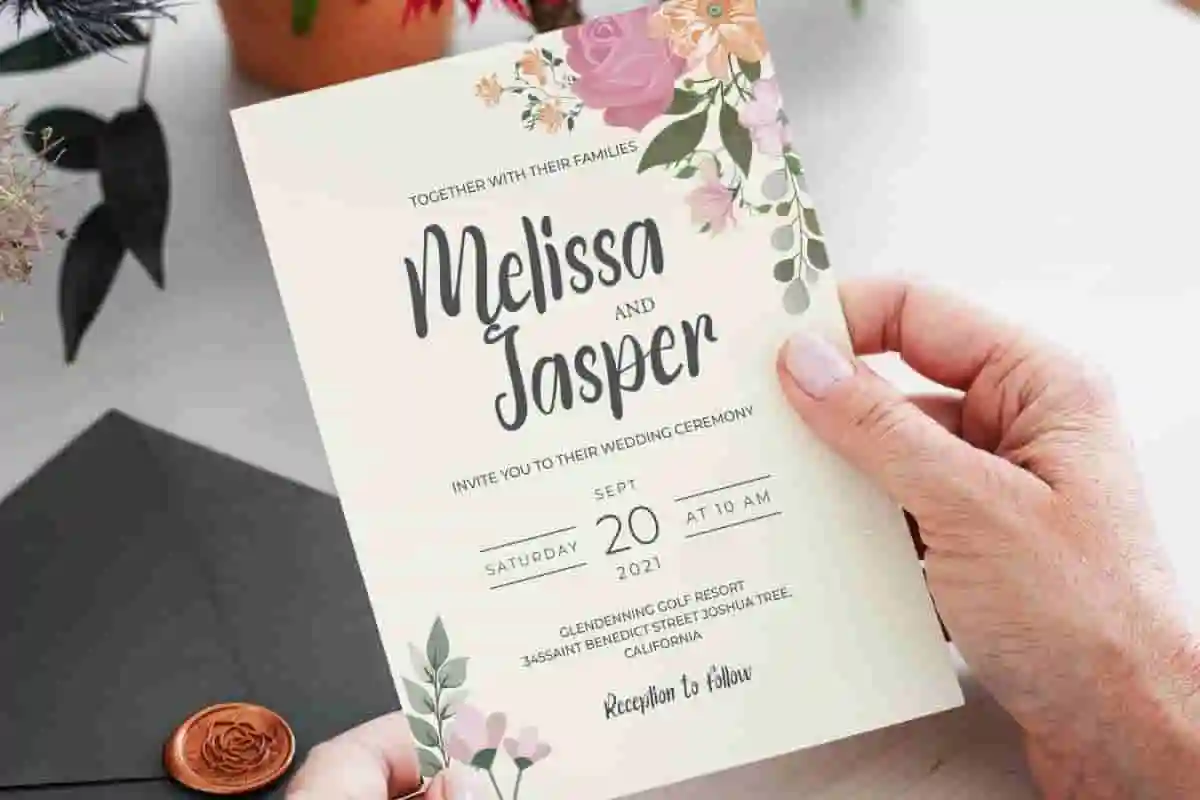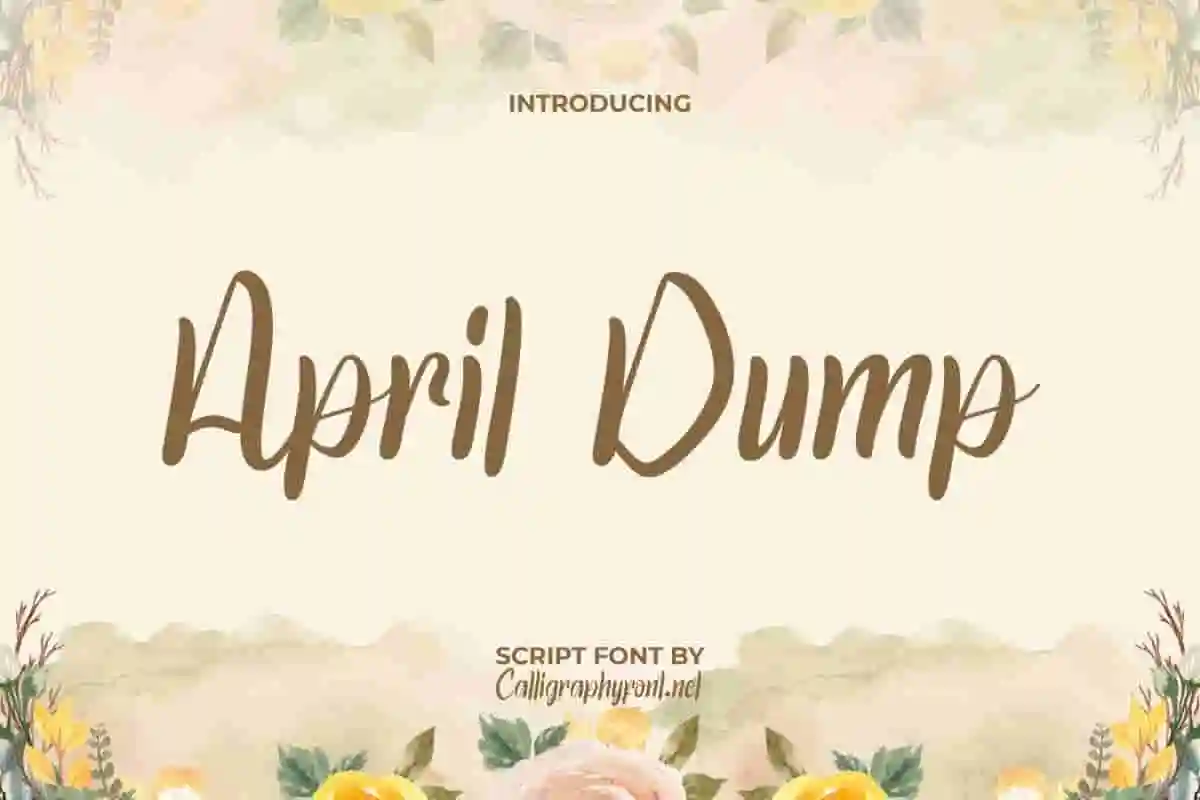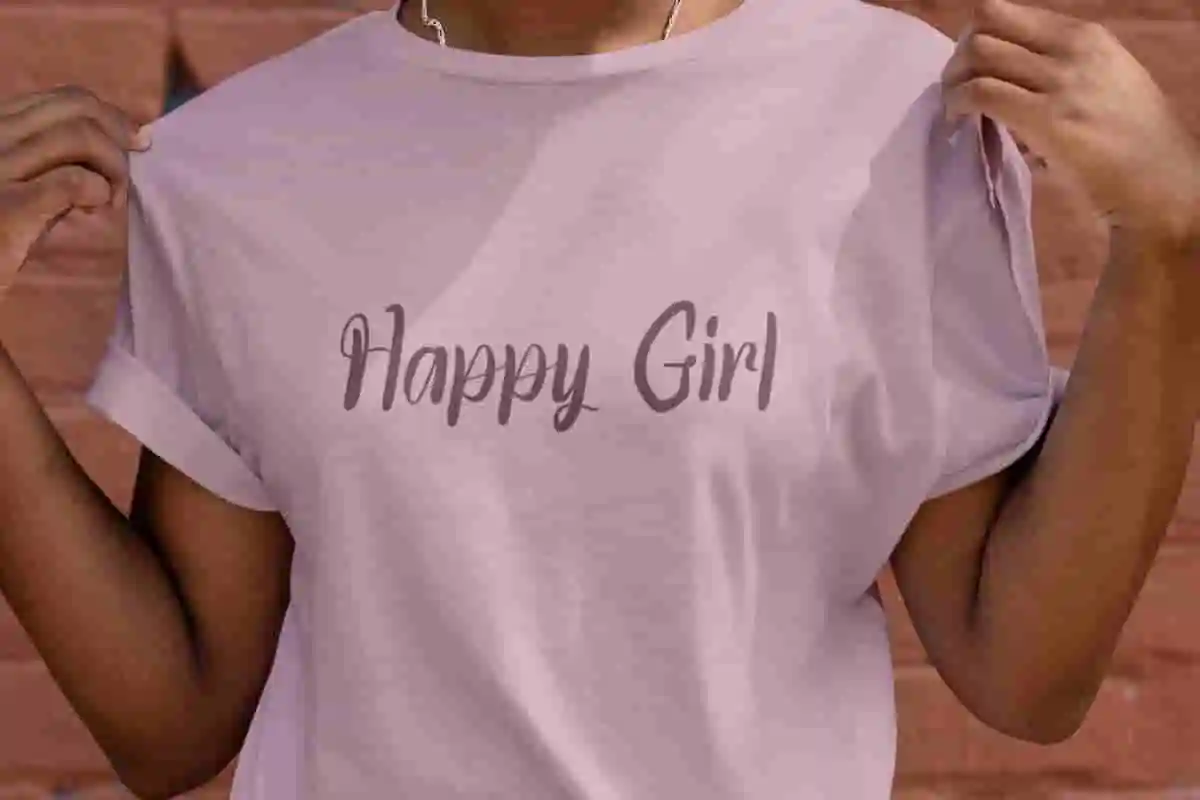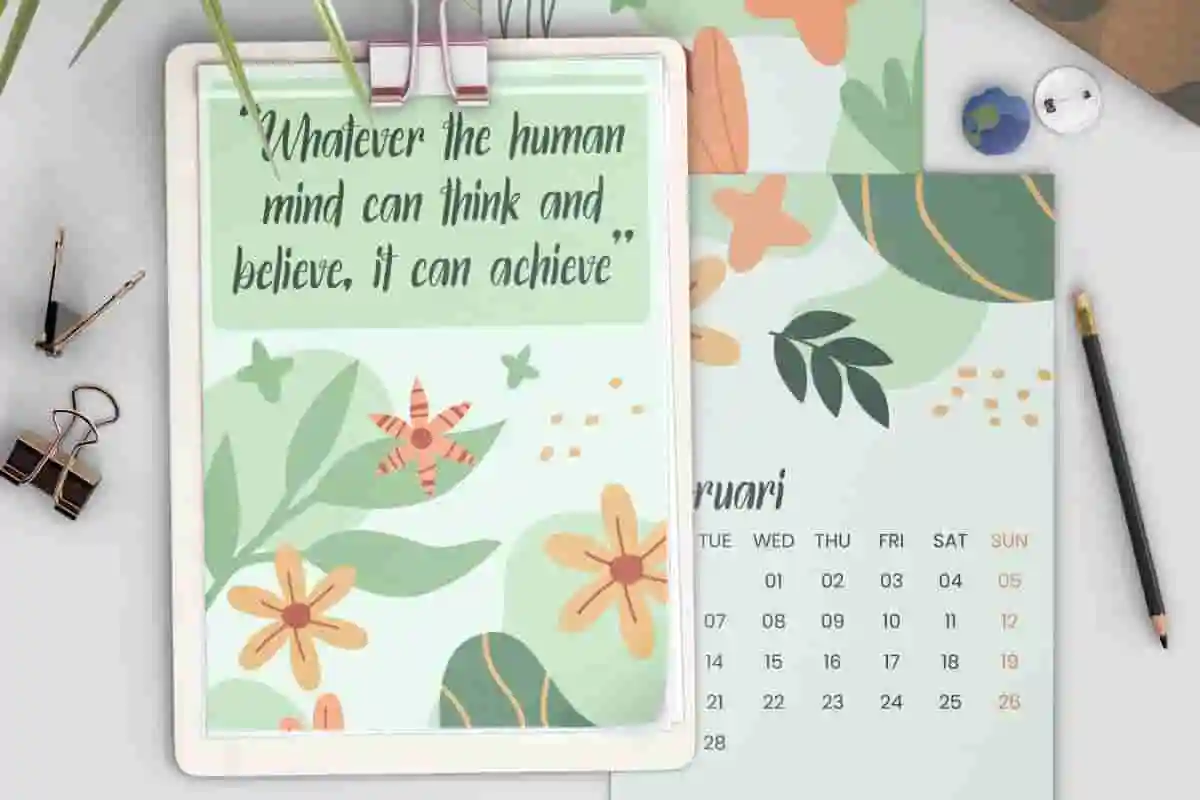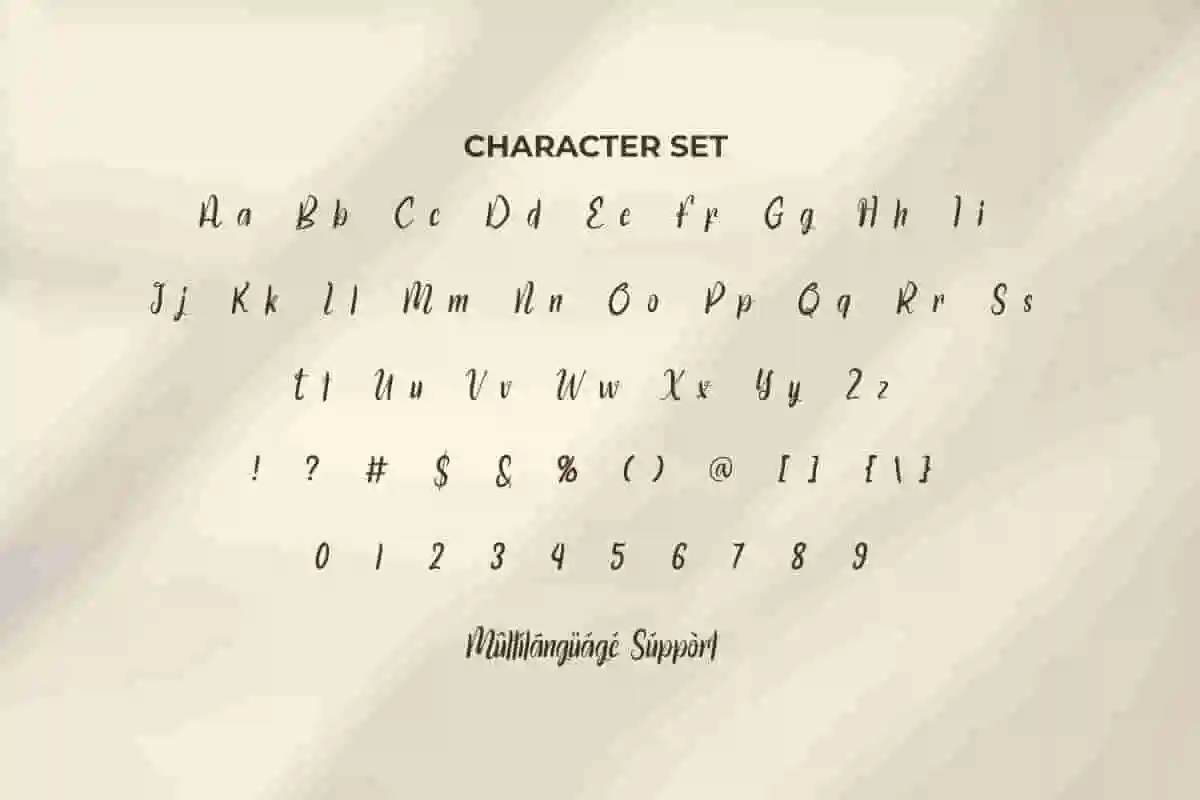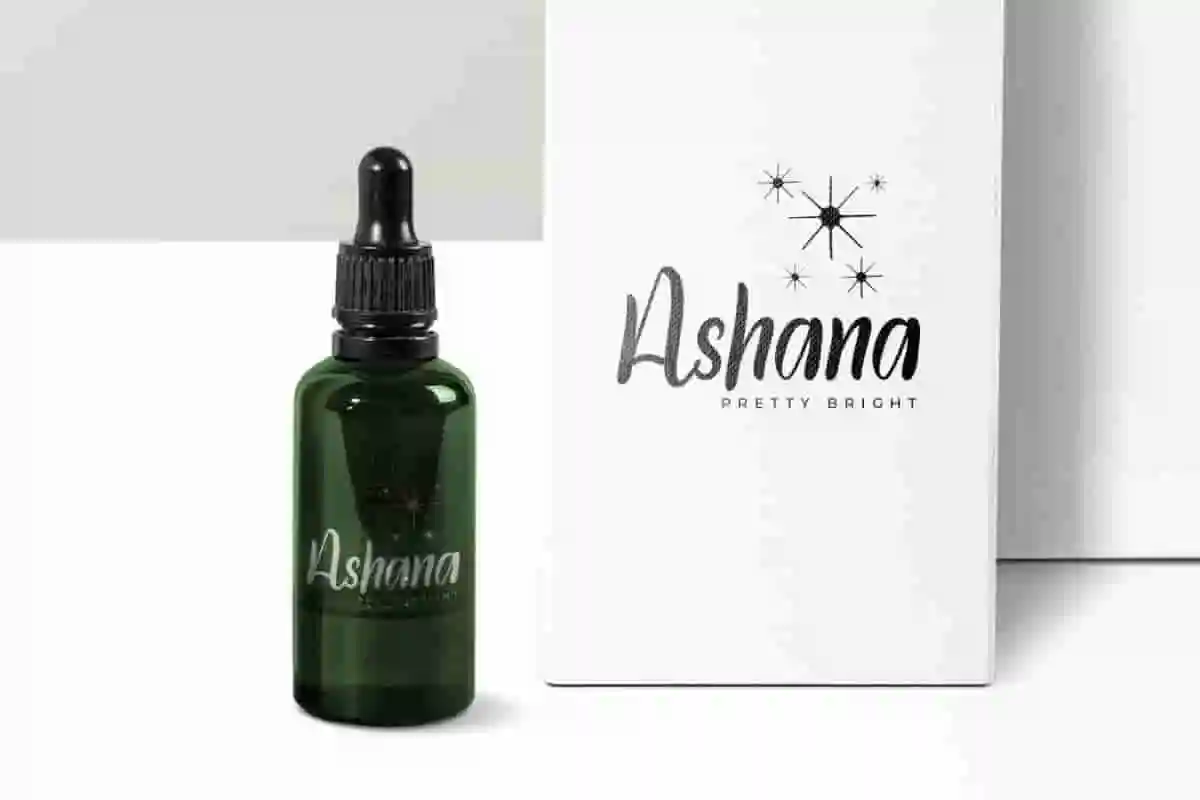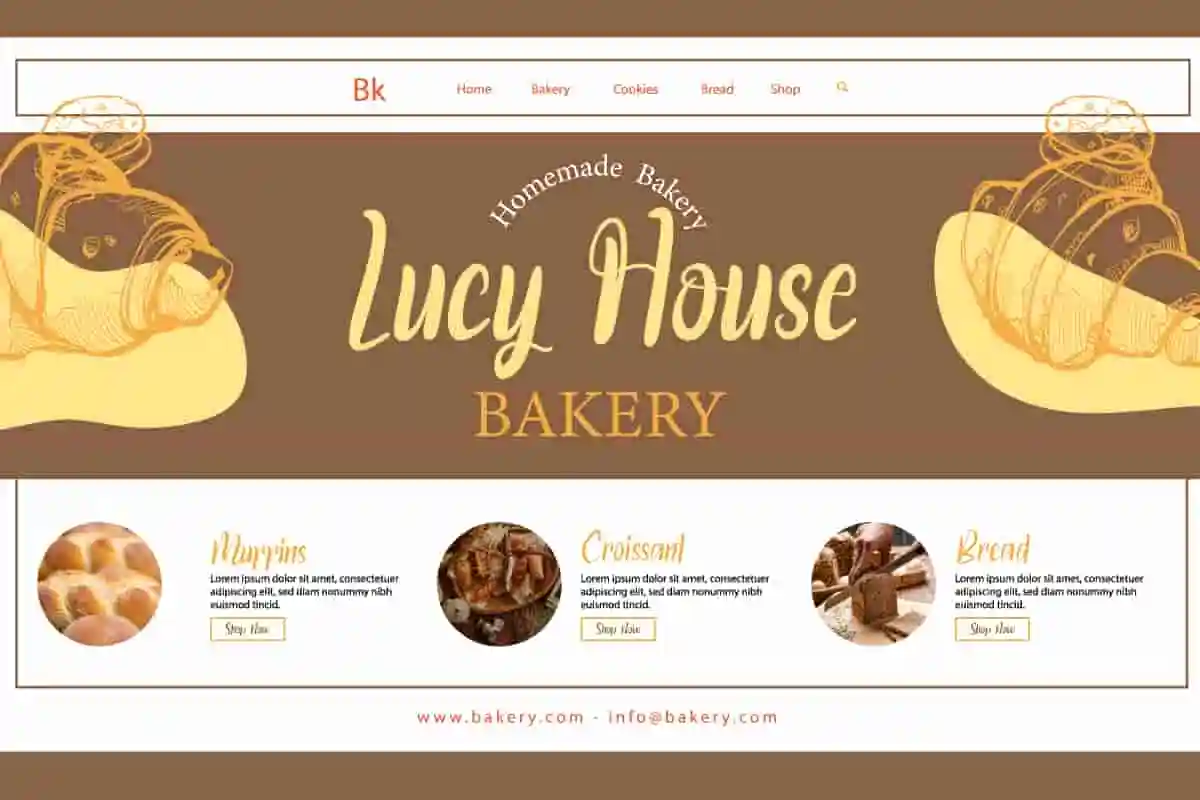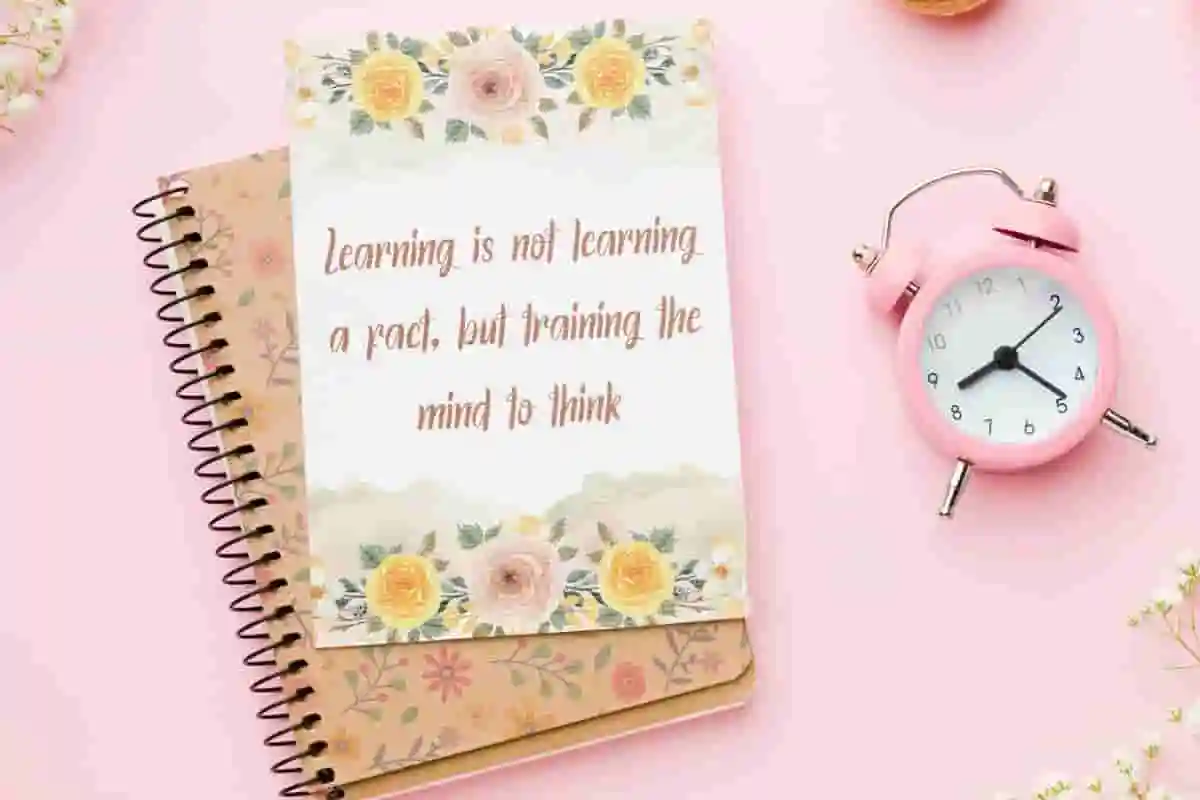
April Dump Font
April Dump Font is a lovely script font, originally handmade for graphic design needs, restaurant, beauty product, stationery, website, wedding and many more!
April Dump Font is a beautiful calligraphy script font with powerful feminine aura. This font can make your design completely perfect, but is still easy to read. It’s perfectly made to any creative project, such as invitation, label, marketing material, website, cover, custom design, brand logo, packaging, quote, screen print, and many more!
April Dump Font is a romantic font that inspired by natural handwriting. It gives an aesthetic feel that makes your work more appealing, so it’s perfect for any industry, such as wedding organizer, accessories, entertainment, author, beauty product, café, content creator, fashion, furniture, graphic design, handicraft, interior design, photography, printing, publishing, writer, etc.
April Dump Font comes with a full set of Basic Uppercase and Lowercase Characters, Numbers, Punctuation and Symbols. Also equipped with Ligature characters that will decorate this font along with multilingual character support. Ready to use on either Windows or Mac machines with simple installation. It is tested to work well in Adobe Applications (Illustrator, Adobe InDesign, Adobe Photoshop) CorelDraw, and others that support the OpenType feature and the Glyphs panel so you can view and access all Glyph variations.